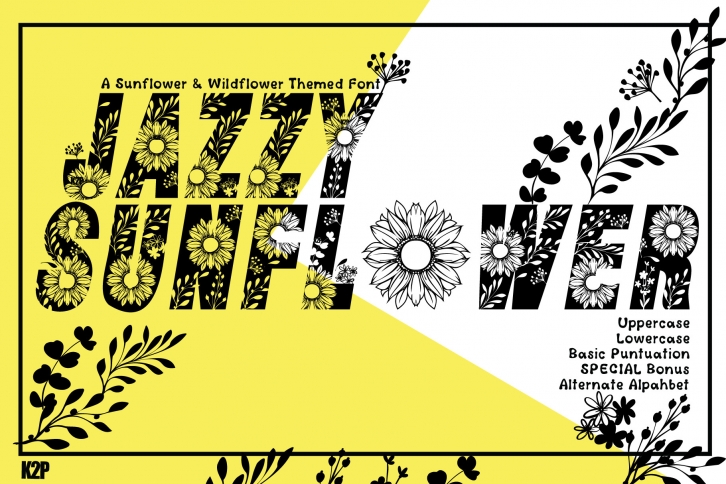
Jazzy Sunflower is a superb decorative font inspired by nature. Use this fresh font for any crafting project that requires a personalized look. This font is PUA encoded which means you can access all of the glyphs and swashes with ease.